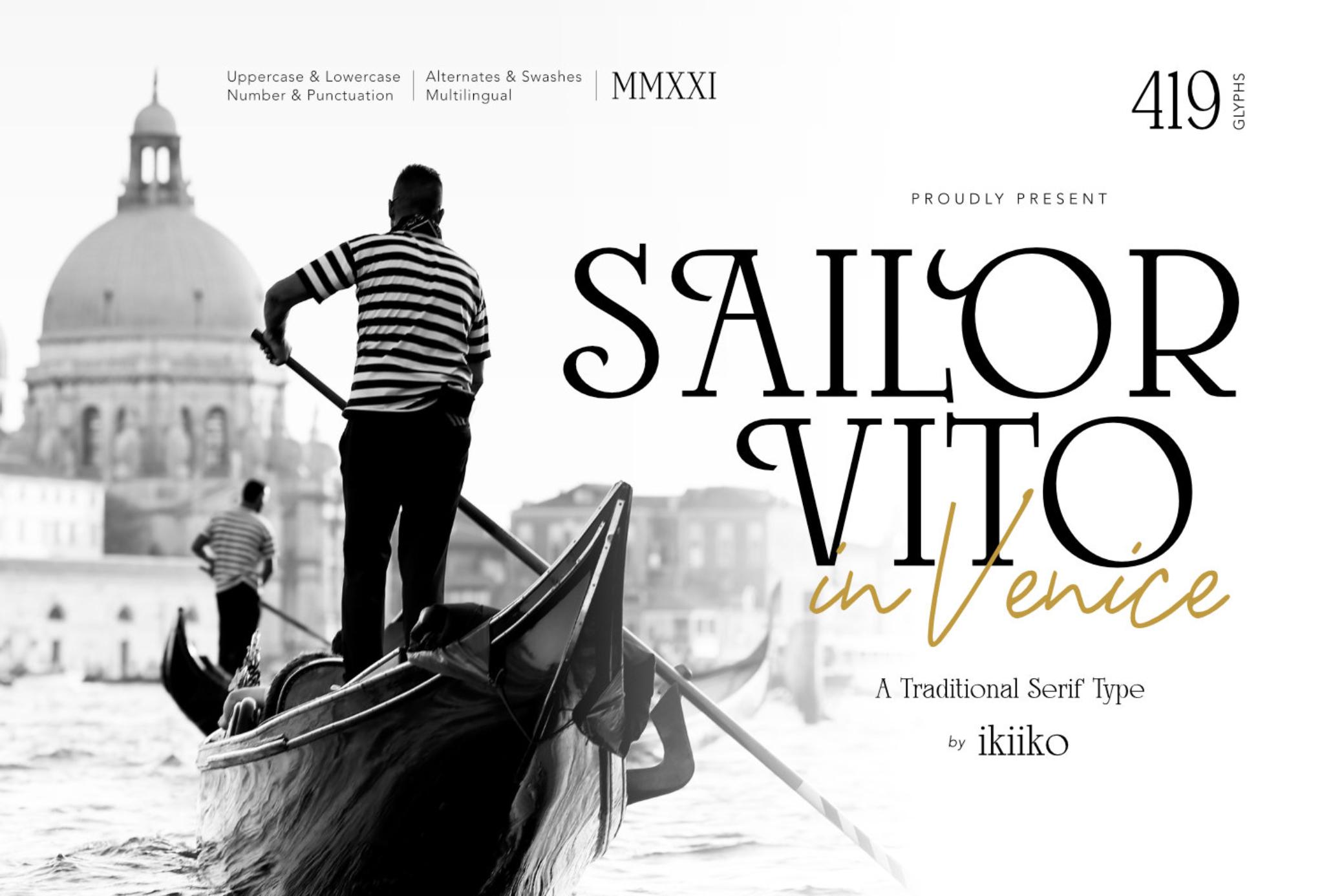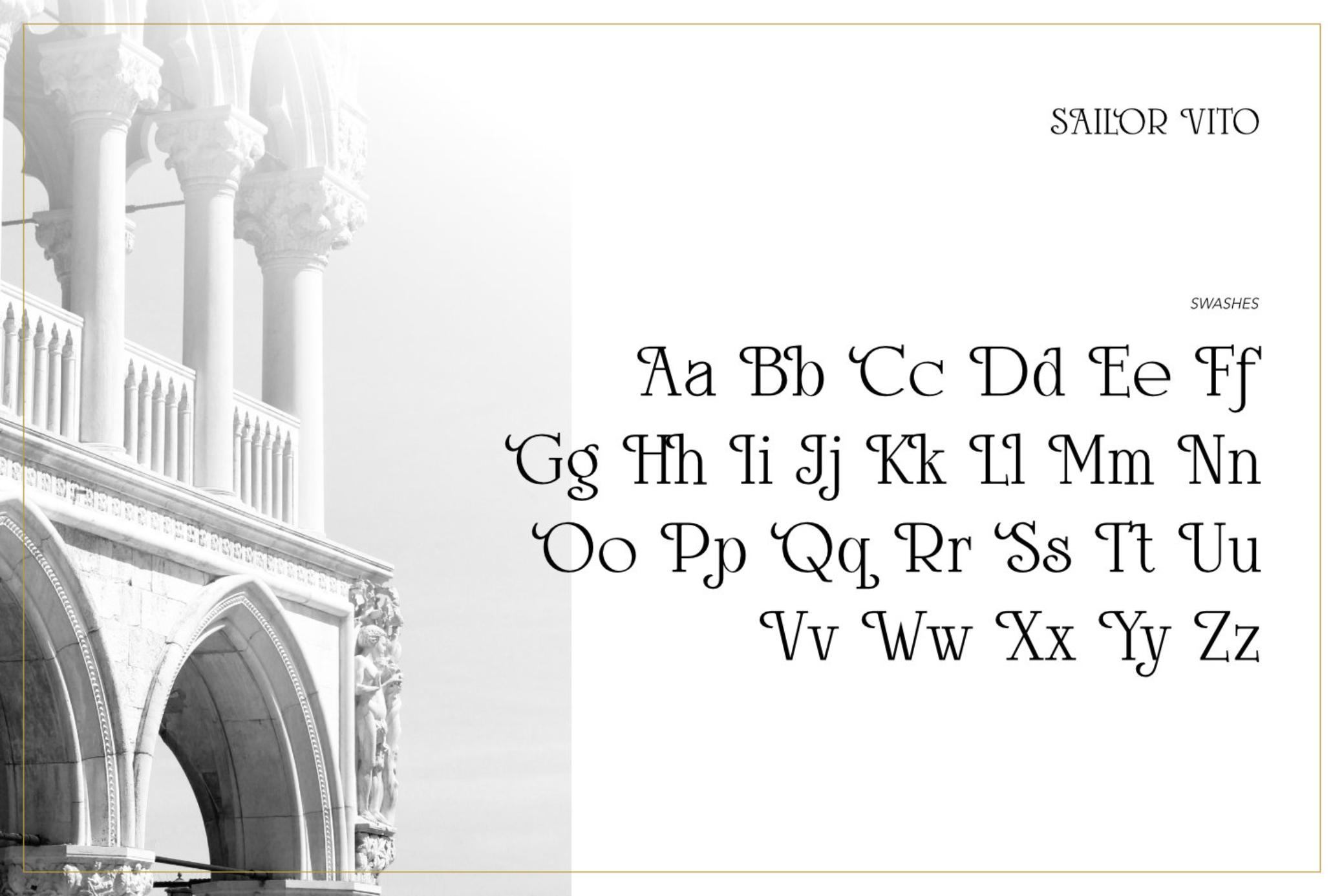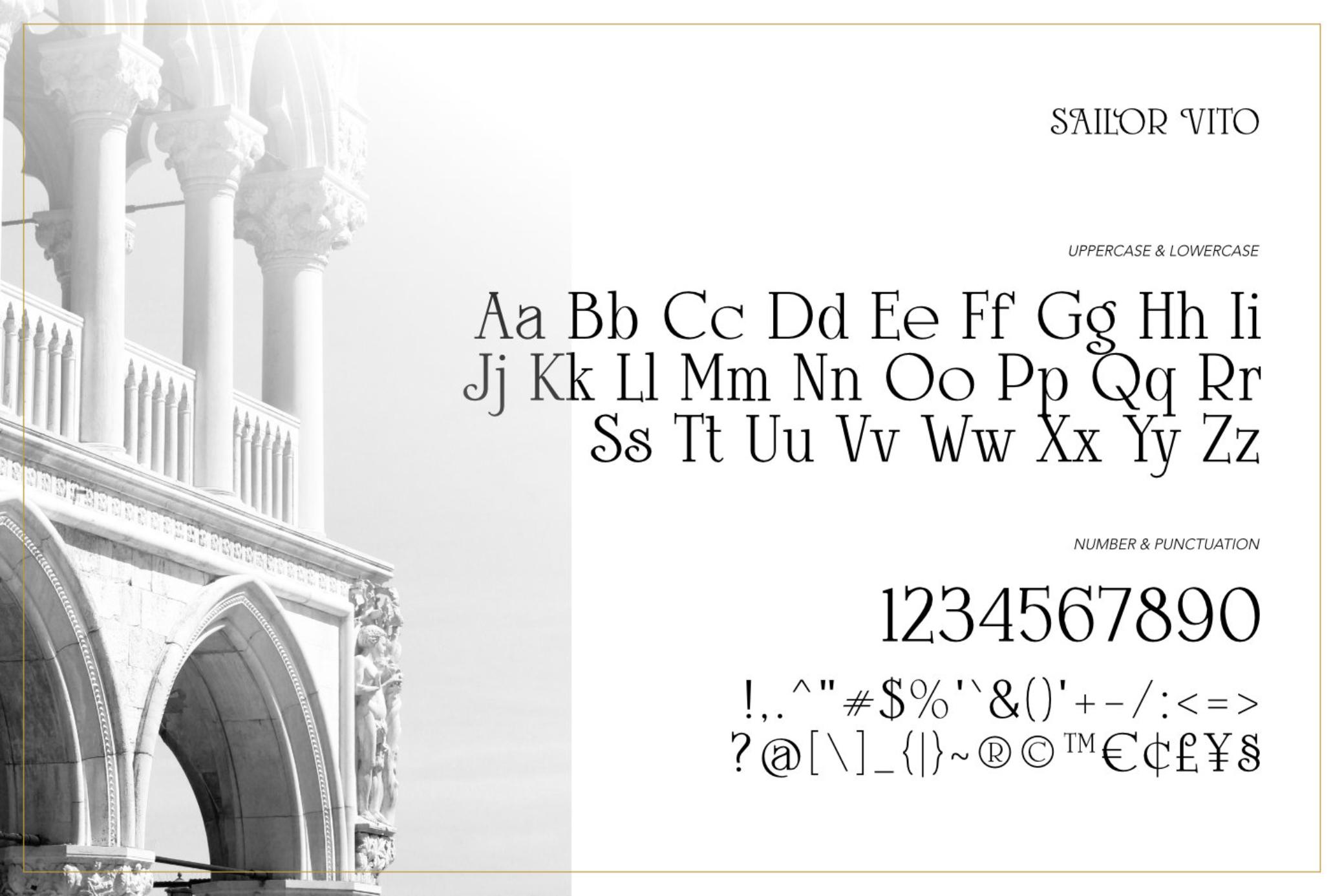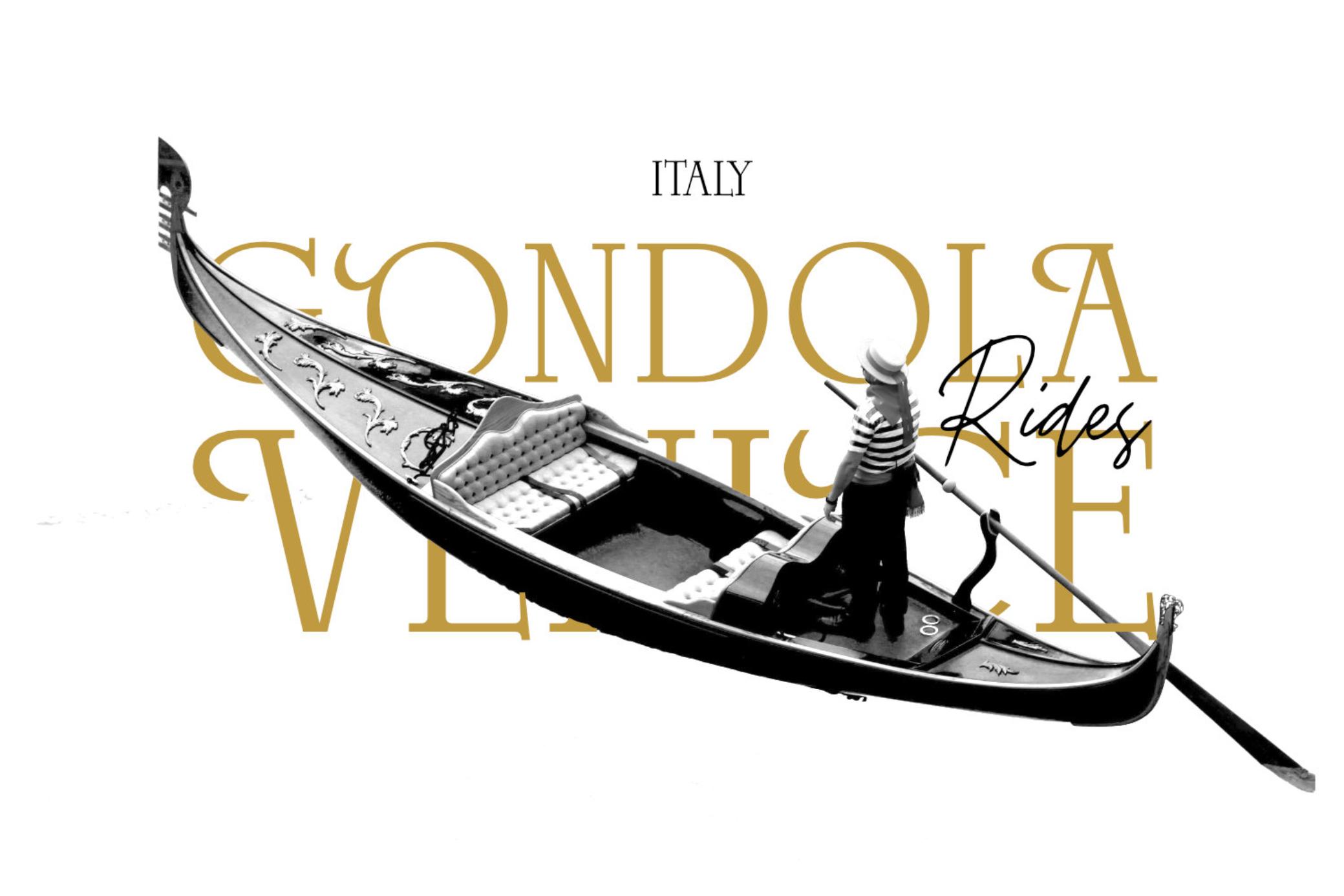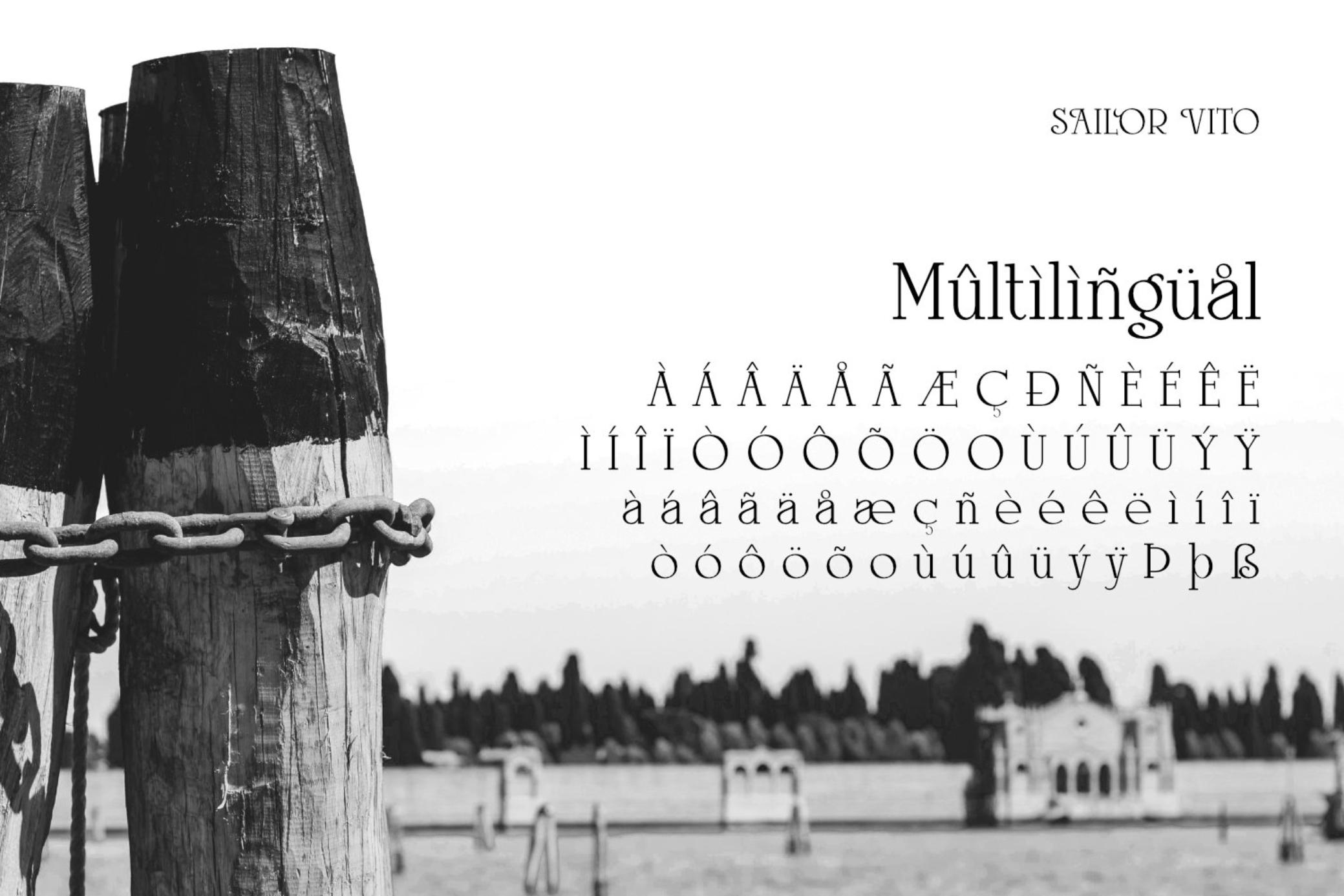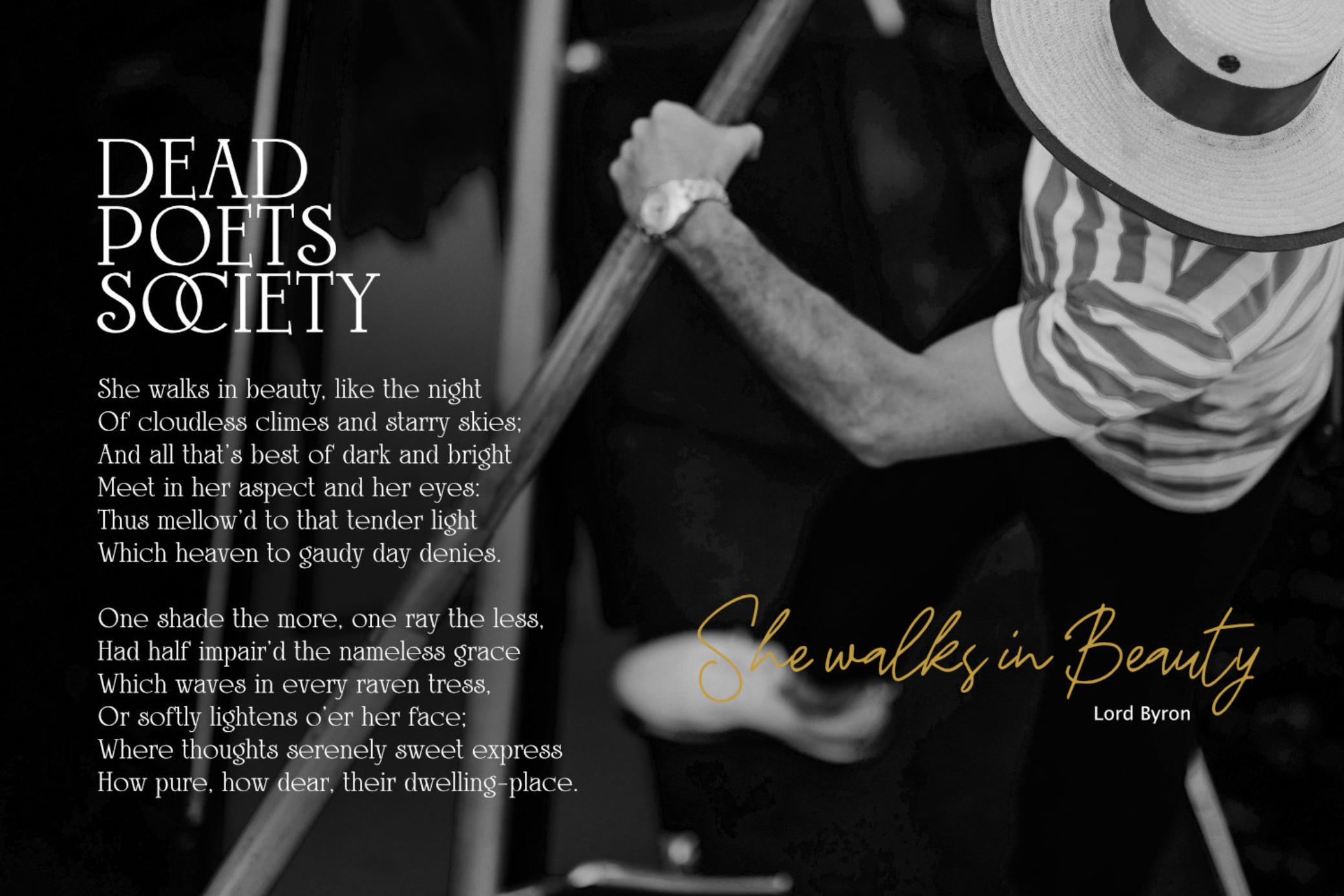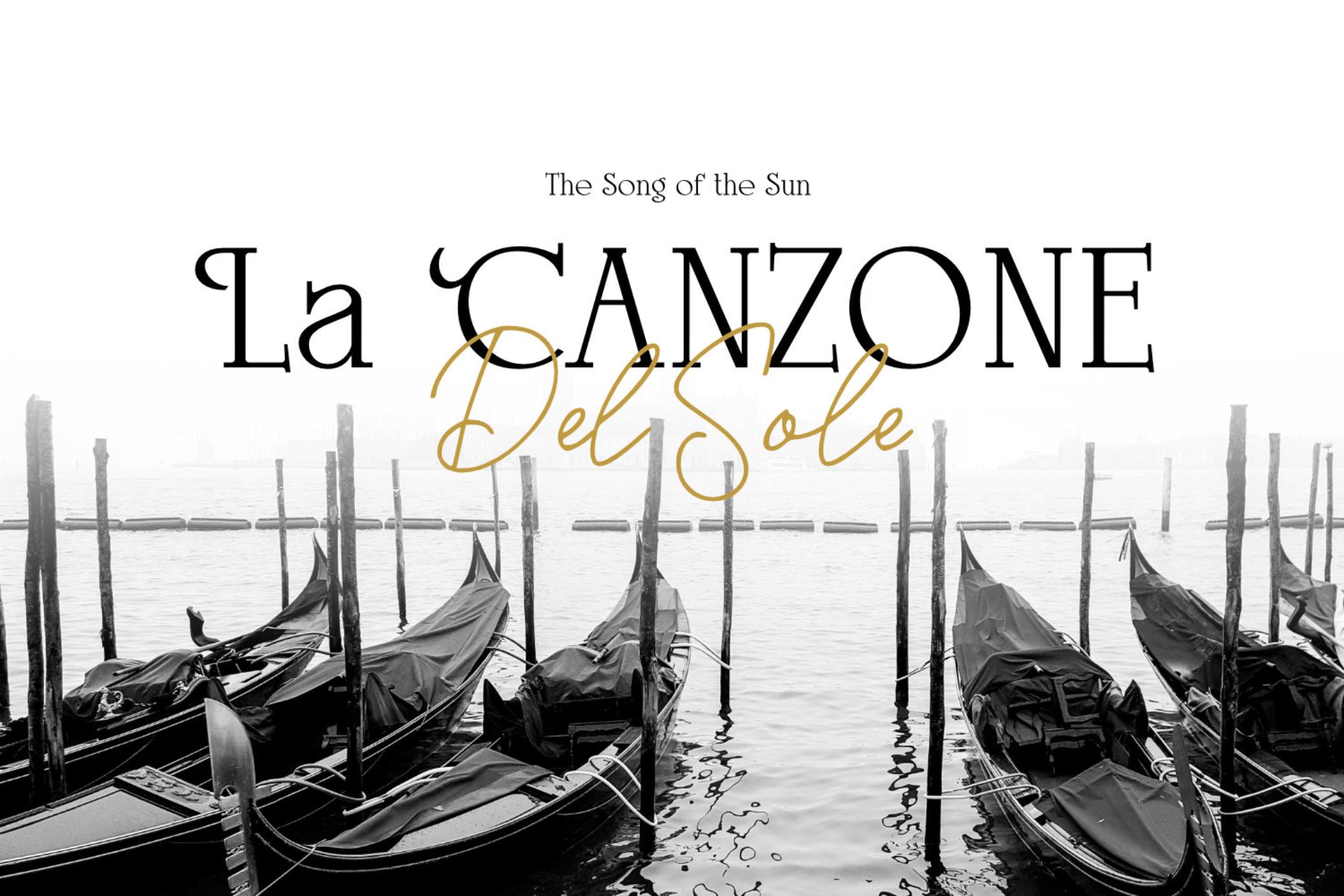
Sailor Vito - Traditional Serif
Introducing Sailor Vito - Traditional Serif, created by ikiiko.
Sailor Vito is a traditional serif typeface with a with a touch of victorian and old english style. This font shape is simple form but has a strong serif hook character. This typeface is perfect for an brand logo, magazine design, travel design layout, flyer design, poster design, inspirational quotes, photography layout, or simply as a stylish text overlay to any background image.
• Number & Punctuation
• Alternates & Swashes